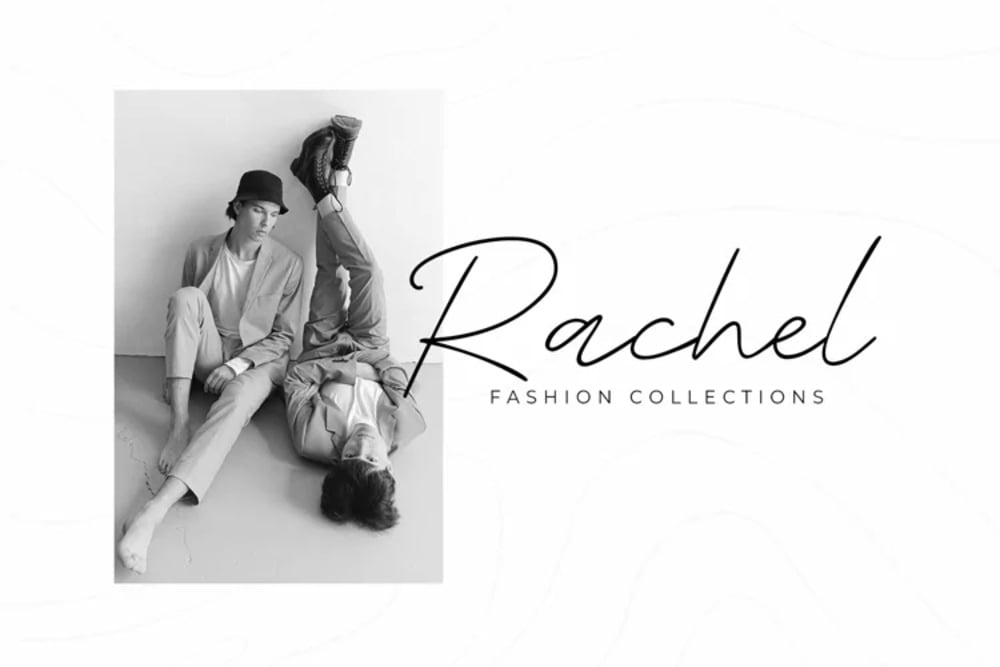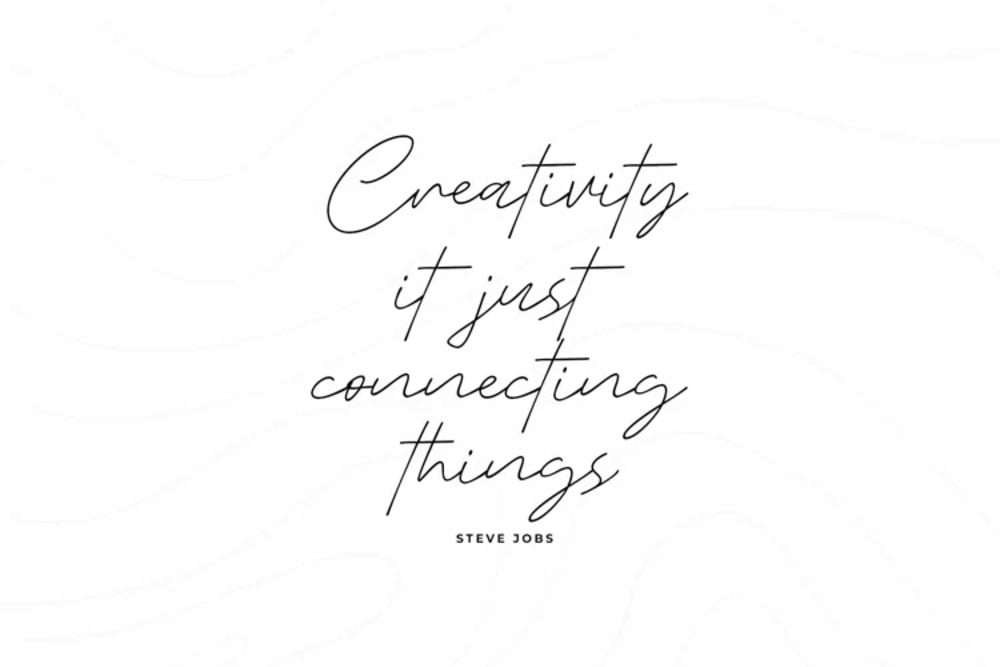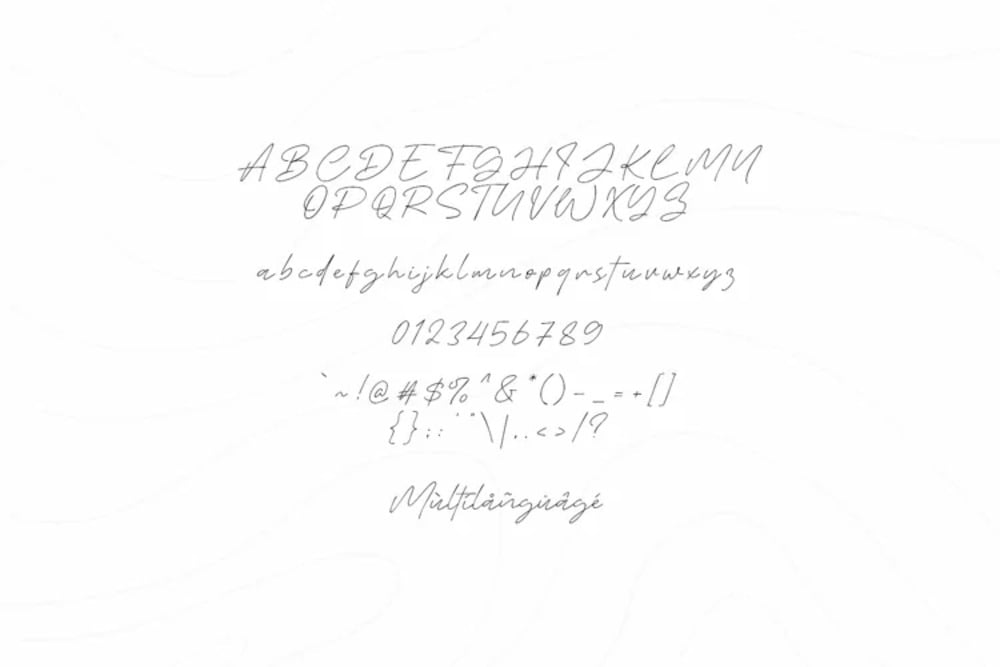
Culture Wind Font
Culture Wind is a free-spirited and expressive handwritten font with a natural, flowing style. Its organic letterforms and slightly imperfect lines create a sense of authenticity and warmth, perfect for adding a personal touch to social media posts, invitations, and branding. Culture Wind evokes a sense of creativity and individuality, making it ideal for projects that celebrate cultural expression and artistic flair. It’s versatile enough for both digital and print designs.